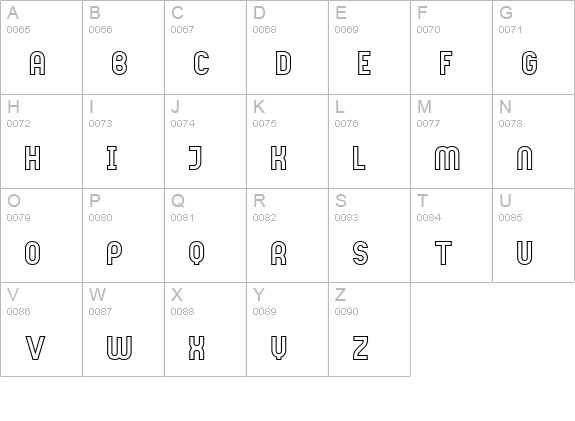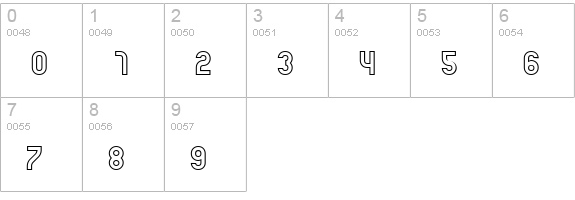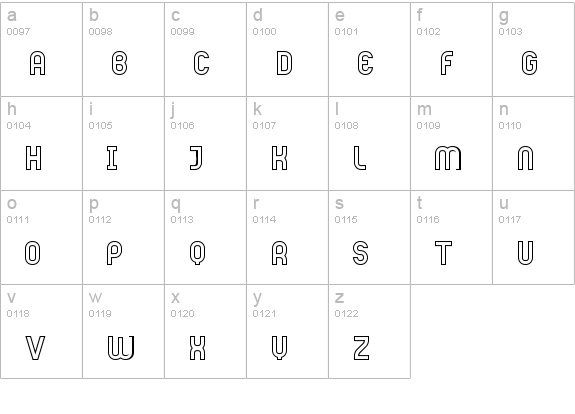
Introducing Mass Outline, a stunning font that combines elegance and modernity in a truly captivating way. This font is perfect for those looking to make a bold statement, whether it be for personal or professional projects. Mass Outline stands out with its sleek and sophisticated design, characterized by clean lines and a distinctive outline. Its carefully crafted curves and precise angles create a unique visual impact, making it a versatile choice for various design purposes. One of the most remarkable features of Mass Outline is its ability to convey a sense of both strength and delicacy. This font effortlessly balances boldness with a subtle grace, making it suitable for a wide range of applications, from branding and logo design to posters, headlines, and more. And the best part? Mass Outline is absolutely free! That's right, you can download this incredible font at no cost from FontsMarket.com. We believe that great design should be accessible to all, and with Mass Outline, you can elevate your creative projects without breaking the bank. So why wait? Discover the endless possibilities that Mass Outline offers and unleash your creativity today. Download this extraordinary font for free at FontsMarket.com and let your designs shine with its impeccable style and sophistication.